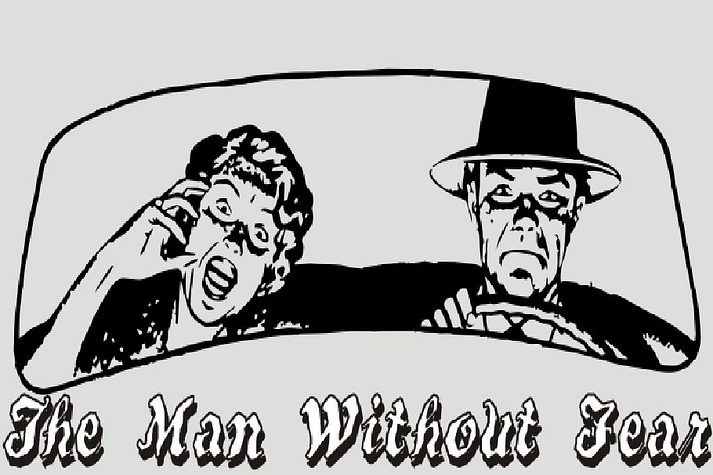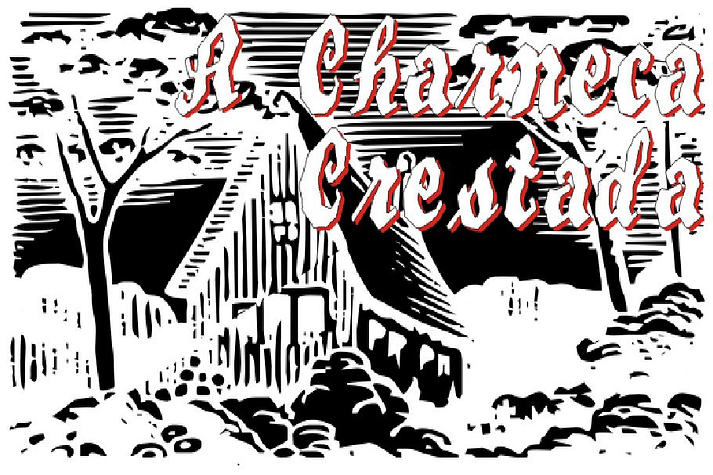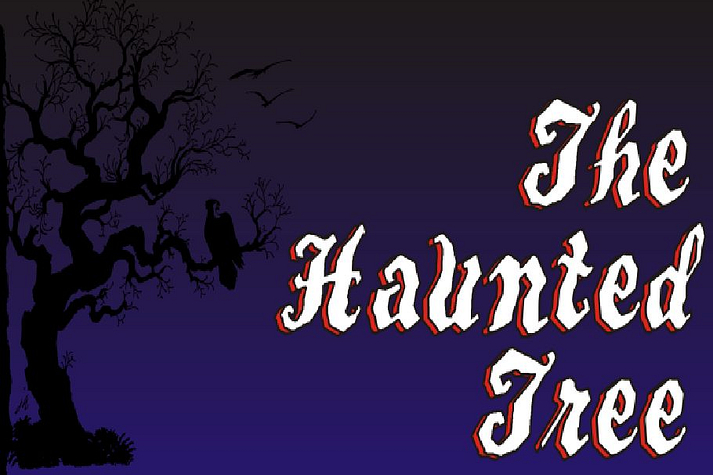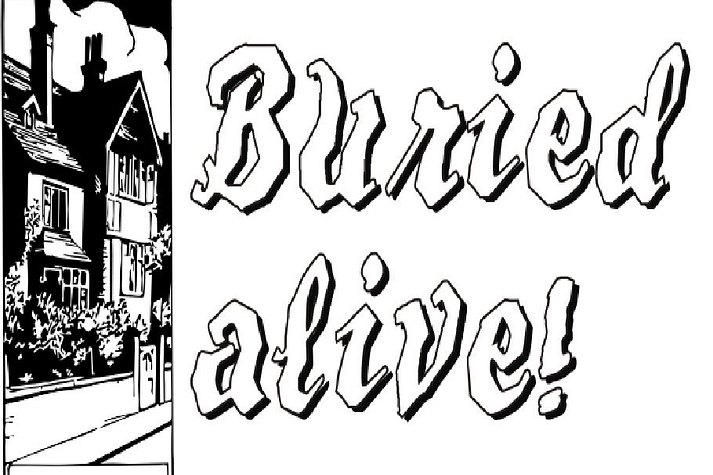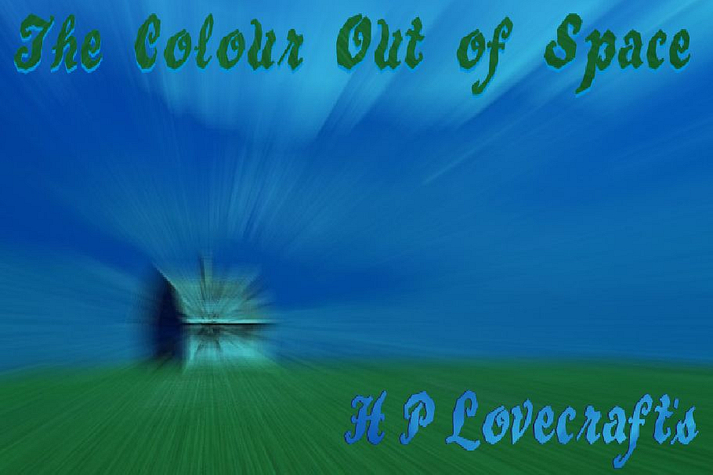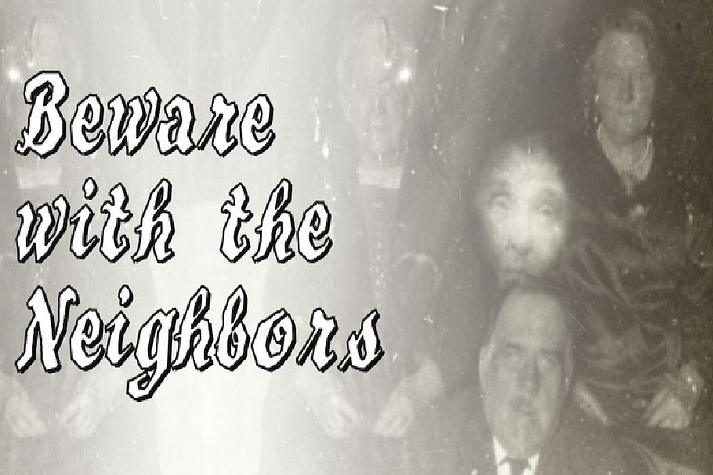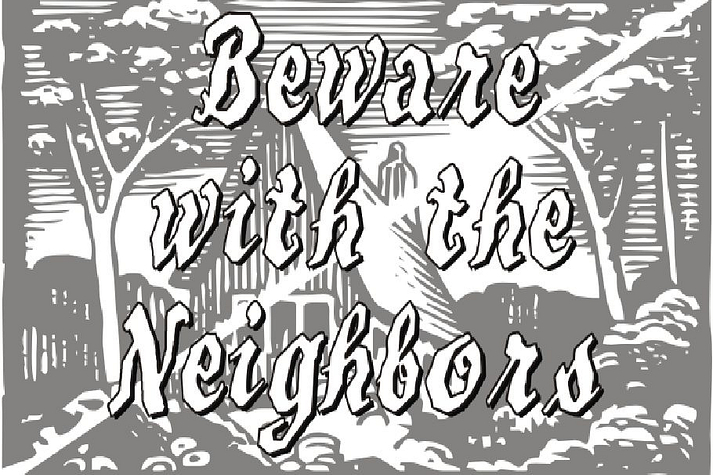
Beware the Neighboors
Designed by Paulo W, Beware the Neighboors is a historical font family published by Intellecta Design.
Beware The Neighbors is based on “Personality Script”, a rough alphabet originally drawn by Ross F. George, and published in one of the Speedball series of lettering catalogs that ran from 1935 to 1948.
The design is something of a minor classic, and several foundries have recreated digital fonts based on it. However, mostly of these interpretations are very “geometric”, formed using straight lines. Intellecta preferred to create a new interpretation using smoother, curved lines to create a creepy appearance. Also included are several ligatures and OpenType stylistic alternates.
CLOSE THE DOORS AND WINDOWS AND BEWARE OF YOUR NEIGHBORS!